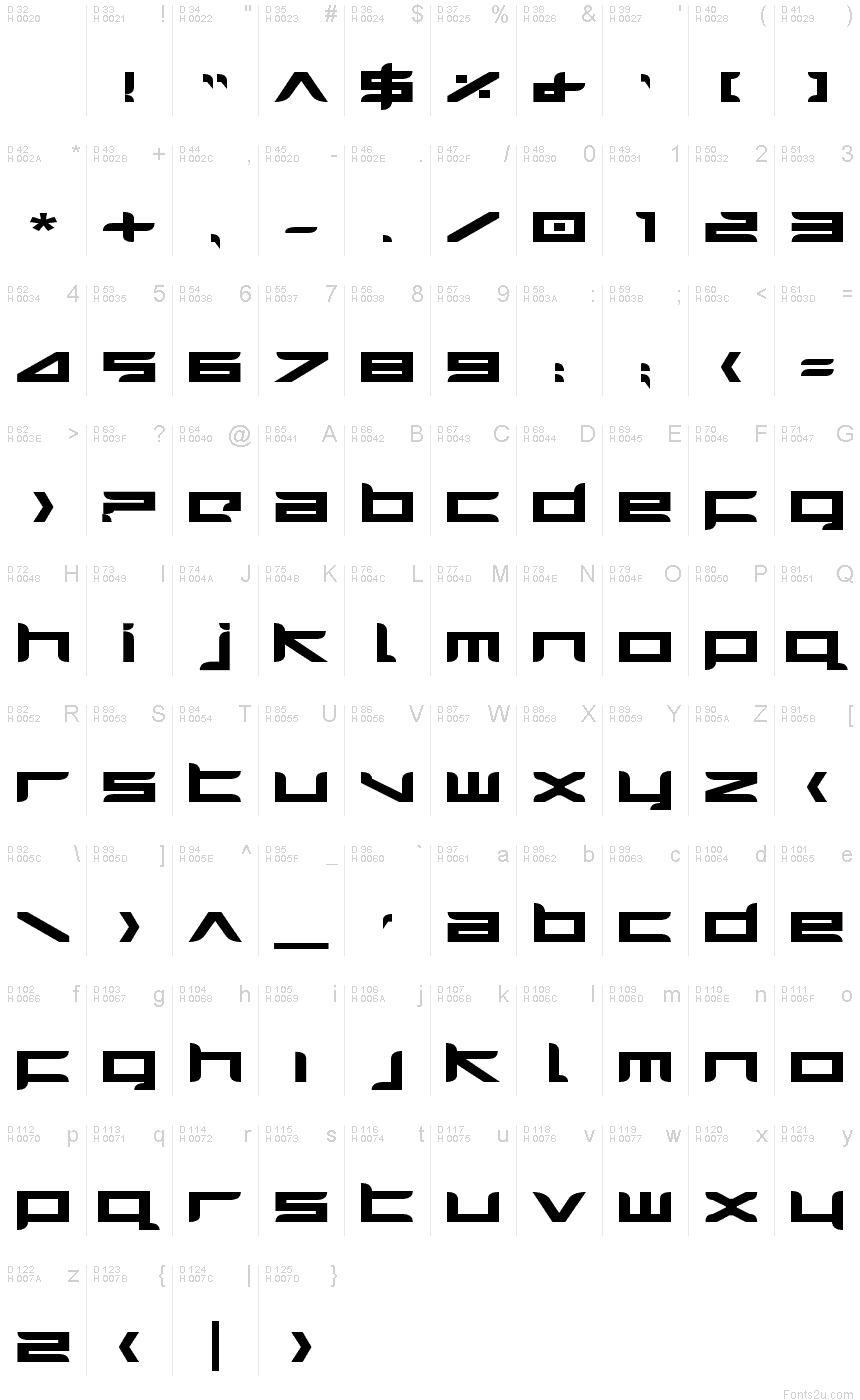
Harrier Bold Expanded
Harrier Bold Expanded by Iconian Fonts is a free futuristic display font built from broad, forceful strokes and squared geometric forms. Rounded corners soften the blocky silhouette, and repeated horizontal cuts give the lettering a streamlined, machine-made look.
It is especially convincing in game titles, where its wide stance and engineered shapes suggest vehicles, hardware, and high-speed technology. The same visual cues suit science-fiction posters, esports branding, and electronic music artwork, where the type can double as an emblem.